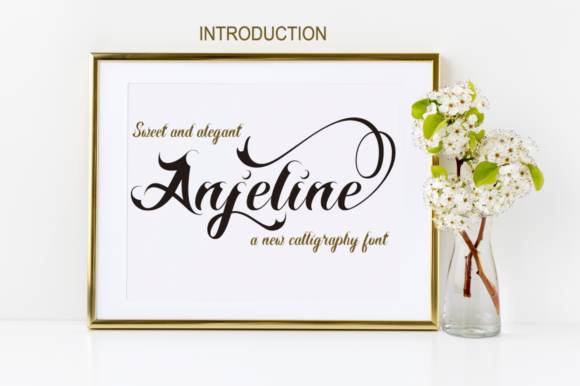
When Words Become Art: The Enchanting World of Anjeline Font
Have you ever stared at a blank page, waiting for the perfect words to flow? For designers and creatives, this moment is all too familiar. It’s the spark that ignites the passion for crafting something truly beautiful. And for those who dwell in this world of words and art, the right font can be the catalyst that sets the imagination ablaze.
Enter Anjeline Font, a stunning script font designed to evoke the essence of romance and elegance. With its PUA encoding, accessing the font’s intricate glyphs and swashes becomes a breeze, allowing designers to unleash their full creative potential. Whether you’re crafting a wedding invitation or a heartfelt love letter, Anjeline Font is the perfect companion to help your words come alive.
For designers, Anjeline Font is a valuable asset that can elevate any project to new heights. Its unique blend of classic and modern elements makes it a versatile choice for a wide range of applications, from editorial design to social media graphics.
Anjeline Font Key Features
- Font Family: Anjeline Font
- Unique Characteristics: An elegant script font with flowing connections and subtle flair, ideal for creating a sophisticated and luxurious look
Anjeline Font Review
I recently had the chance to work with the Anjeline font, and I must say it’s been an interesting experience. ✨ Here are some things that work well:
- Beautiful, elegant script – perfect for creating a sophisticated and romantic look.
- Highly versatile, suitable for a wide range of design projects, from wedding invitations to branding materials.
- Easy to read, even at smaller font sizes, making it ideal for body text or captions.
However, like any font, Anjeline has its limitations: ⚠️
- Not ideal for bold, headlines-heavy designs – it can look a bit too delicate and may get lost in larger font sizes.
- May require some additional styling to achieve the perfect balance of elegance and legibility.
Overall, I’d say Anjeline is a solid choice for designers who want to add a touch of sophistication and whimsy to their projects. While it may not be the best fit for every design, it’s definitely worth considering for the right project. With a bit of finesse and attention to detail, Anjeline can elevate your designs to a whole new level.
Anjeline Font: A Practical Application Guide
Getting the Most Out of Anjeline Font
To get the most out of Anjeline Font, use it in combination with other design elements such as images, colors, and shapes. Experiment with different font sizes, colors, and styles to create a unique and visually appealing design.
Anjeline Font is suitable for various design projects, including logos, brochures, posters, and social media graphics. It is also ideal for creating eye-catching headings and titles in documents and presentations.
Alternatives to Anjeline Font
Playfair Display is a luxurious and elegant serif font, perfect for high-end branding and advertising. It features intricate details and ornate flourishes, making it ideal for use in headings and titles. When to use: For luxury brands, high-end fashion, and premium products.
Comparison: While Anjeline Font has a more subtle and refined feel, Playfair Display is more dramatic and eye-catching. Playfair Display is better suited for making a statement, while Anjeline Font is more versatile and can be used in a variety of contexts.
Great Vibes is a modern script font with a relaxed, casual feel. It’s perfect for use in titles, headings, and body text, and works well for creative and artistic projects. When to use: For creative agencies, art studios, and businesses with a relaxed, approachable brand image.
Comparison: Great Vibes has a more laid-back and casual feel compared to Anjeline Font, which is more refined and elegant. Great Vibes is better suited for creative and artistic projects, while Anjeline Font is more versatile and can be used in a variety of contexts.
Q: What is the character set for Anjeline?
Anjeline supports a wide range of languages, including Latin, Cyrillic, and Greek. It also includes a comprehensive set of glyphs, including punctuation marks, currency symbols, and mathematical operators. The font is optimized for use in digital media and is suitable for a variety of applications, including web design, mobile apps, and desktop publishing.